Unleash your creativity with June’s innovative fonts, from versatile workhorses to bold experimentations and cultural inspirations.
Feeling like trying something new? Us too. It’s the kind of spirit that often takes over when summer hits, the weather improves, everyone gets outside, and you start to think: let’s shake things up a little. And one of the best ways to do that as a designer is to start experimenting with new typefaces.
To help kickstart that effort, every few months, we pull together an exciting array of fonts that cater to diverse design needs, from refined text settings to playful experiments in typographic creativity. And while our of the latest new fonts is still very much worth a look, we’ve had a further flurry of new releases since. So here we go again…
These new typefaces for June showcase the ongoing innovation that leading type designers are known for, and all push the boundaries of type design to offer fresh, versatile solutions. In particular, this month, we’re seeing a heady blend of technical sophistication, generative creativity and cultural inspiration.
In short, these fonts bring something unique to the table, whether you’re looking for traditional elegance, experimental creativity or modern versatility. So dive into the latest offerings, and we hope you find the perfect font to elevate your design projects this June.
The latest typeface from Jeremy Tankard, Ravenscar, is an old-face slab serif. It’s been principally designed for typographers to craft extended text, book design, and publishing detail.
There are four optical sizes: Text, Large Text, Display and Fine. The Text fonts are low in contrast, whilst the Display variants show a higher degree of stroke difference. This increases in the Fine fonts, which owe more to mannered lettering with tighter proportions and sharper detailing; useful for short text at large sizes.
Various ideas were incorporated across the design to allow for an optical range of fonts for text setting and a much finer design for very large use. This finer cut also benefits from an Extra Lightweight. The italic, meanwhile, was developed as an independent style along a more cursive route, combining softer flowing script elements in many capital letters with an energetic and dynamic lowercase.
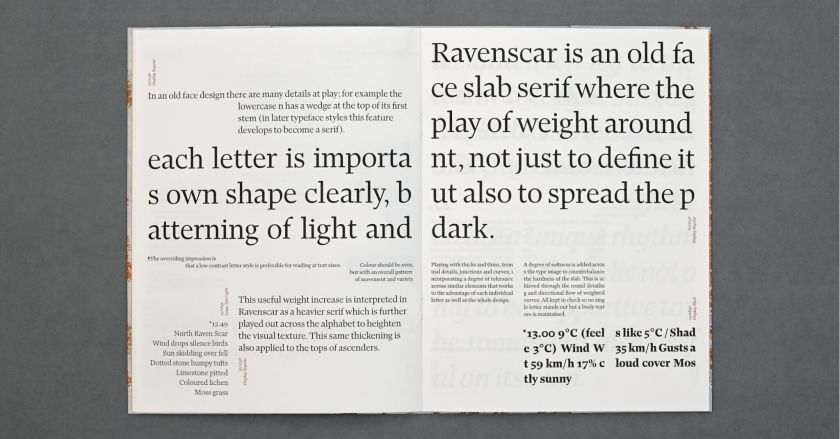
Ravenscar
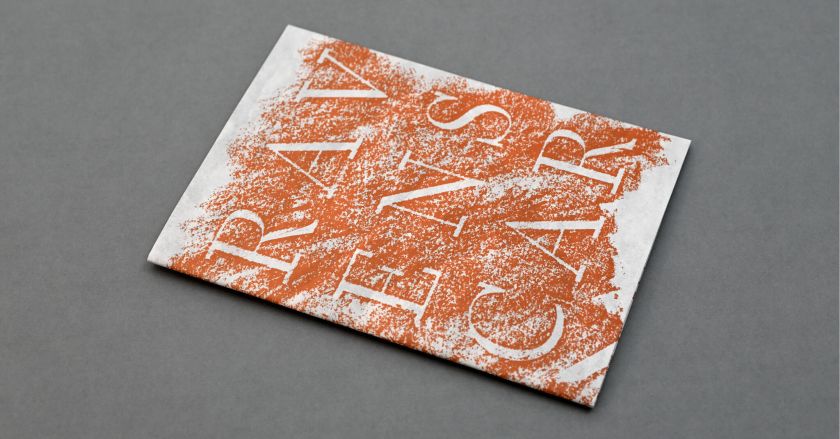
Ravenscar
Along with standard pair kerning, Ravenscar incorporates an extra level of contextual spacing. This applies a range of adjustments to the standard word space in order to amend visually inconsistent gaps and balance the line of set text.
Designed by Rémi Forte, Krata takes a generative approach to type design. Located at the junction of design and programming, the typeface follows a minimalist and radical logic. Inspired by Karl Gerstner’s Designing Programmes and Metafont by Donald Knuth, it reinterprets a dynamic approach to type design, where glyphs’ contours are considered a flexible physical envelope placed over a framework.
Comprising only capital letters, Krata is a variable titling font. Its weight axis makes maximum use of type design restrictions. The interpolation from the Thin to Black styles evolves the stroke from the thinnest to the thickest possible, flirting with the limits of legibility.
Krata
To create it, Rémi developed a program in Python which applies a pattern of horizontal or vertical lines to a glyph according to an elementary frame placed on a grid. These creative restrictions delineate formal possibilities and can be a source of inventiveness for designers.
Who doesn’t love a day out at the seaside? And FT Scenik harnessed that feeling by taking its inspiration from the modernist typography of Margate, a coastal town in southeast England. Drawing on influences from the 1930s to the present day, this lovely font merges heritage and contemporary design features to create a versatile type family.
Blending classic British style with modern playfulness, the design concept draws from iconic elements like the Dreamland amusement park facade and the contemporary aesthetics of current shops and venues in the town. FT Scenik captures Margate’s diverse styles through four variable axes: Width, Weight, Slant, and Ascenders.
The letterforms are designed with tapered intersections to prevent dark spots in tight corners, and flaring stems to balance the strokes. You also get OpenType features such as style sets, case-sensitive forms and tabular figures.
FT Scenik
Cleverly, the typeface brings the dots inside the characters, allowing accents to be used in word marks and headlines without affecting tight set leading. It’s a smart way of demonstrating how letterforms can be unconventionally structured while maintaining readability in a writing system.
The OpenType internal dot feature can be accessed via an alternate style set. Internal dots are provided in the family’s standard and text cuts. More broadly, the typeface offers an extensive array of options, including 142 styles, 13 weights, and three families. It’s also available in a variable font format.
In other words, while a normal ligature just combines separate letters, a mega-ligature enables major metamorphosis of a single character shape through rotation, colour changes and repetition.